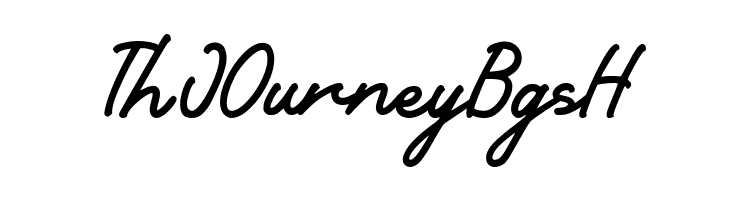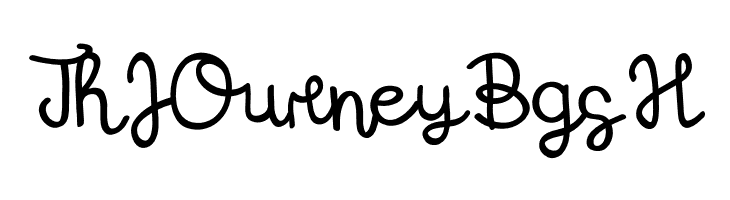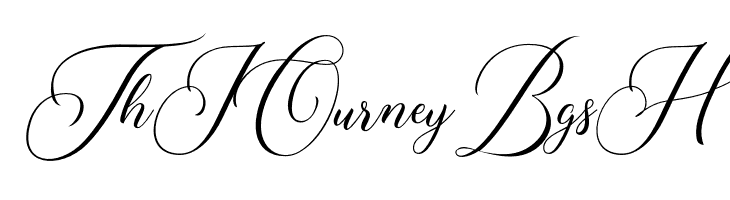
A dynamic and fluid script font with elegant curves and a stylish appearance.
A playful, whimsical script font with flowing, interconnected letters.
An elegant script font with flowing, cursive letterforms and sophisticated flourishes.